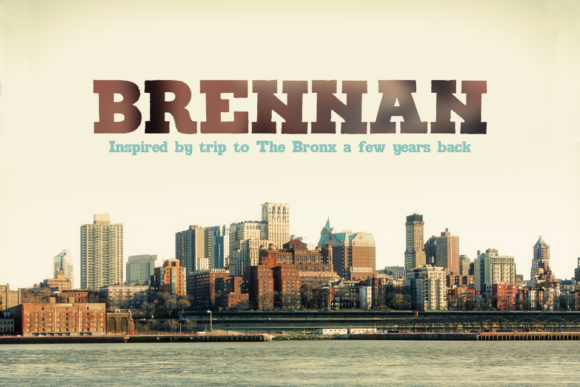
The Brennan Font: A Designer’s New Best Friend
I still remember the design project that led me to discover the Brennan font. I was working on a branding project for a local boutique, and I was struggling to find the perfect font that would capture the essence of the brand – elegant, yet down-to-earth. The client wanted a font that would stand out on busy backgrounds, but also be readable in smaller sizes. That’s when I stumbled upon Brennan, and it quickly became my go-to font for the project.
An Honest Review: What I Love and What I Don’t
- ✅ Elegant serif design that’s perfect for headlines and body text
- ✅ Casual charm that makes it appear wonderfully down-to-earth
- ✅ Highly readable, even on busy backgrounds
- ✅ Incredibly versatile, suitable for a wide range of design projects
- ⚠️ Limited availability of certain OpenType features in some platforms
- ⚠️ Some users may find the font too delicate for certain design applications
The Story Behind Brennan
Brennan was designed with the goal of creating a font that’s both elegant and down-to-earth. The designer wanted to create a font that would be perfect for a wide range of design applications, from luxury branding to everyday documents. The result is a font that’s both versatile and beautiful.
| Author | Mario Arturo |
Q: What is the Brennan font?
A: Brennan is an elegant serif font designed for a wide range of design applications. It’s known for its casual charm, readability, and versatility.